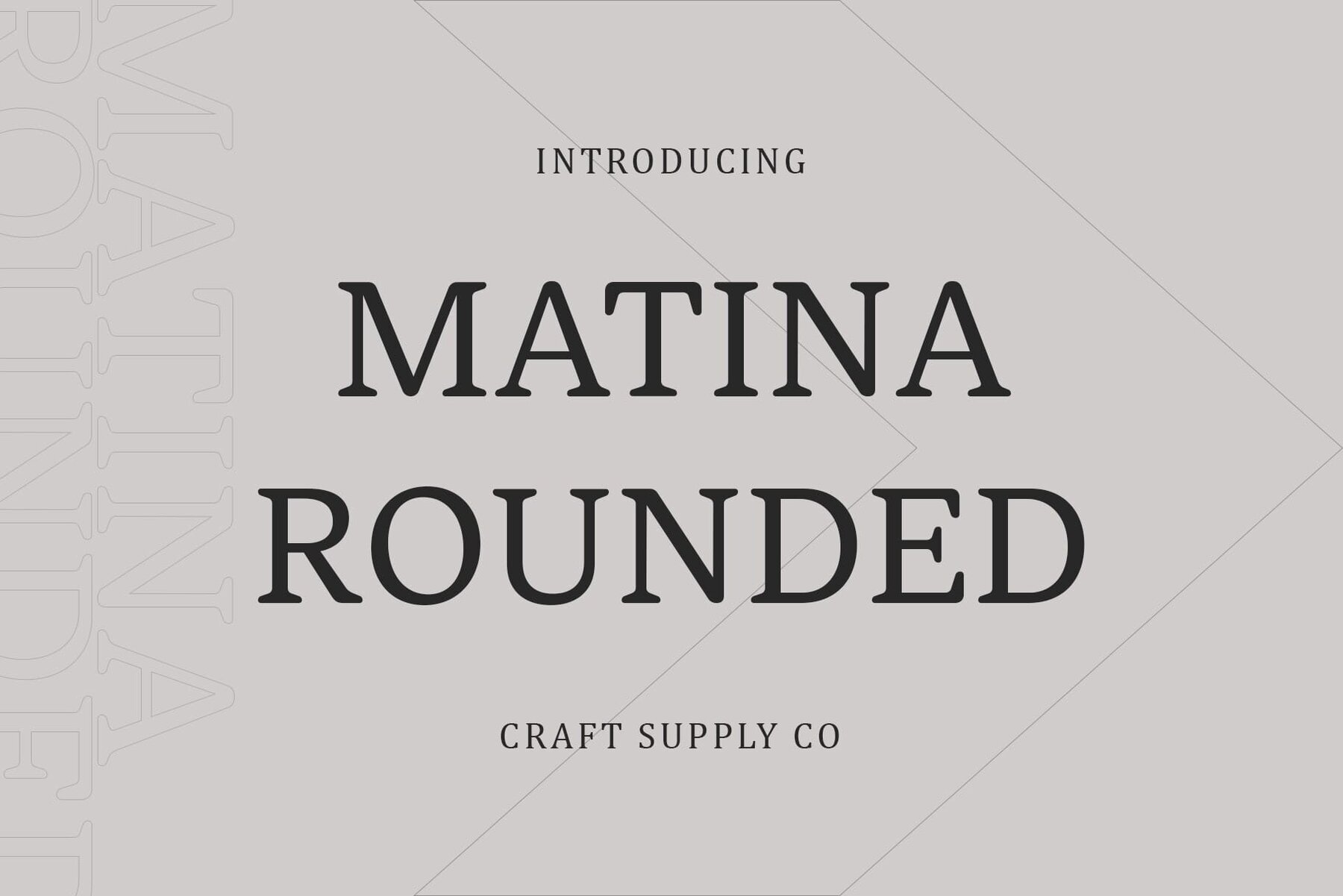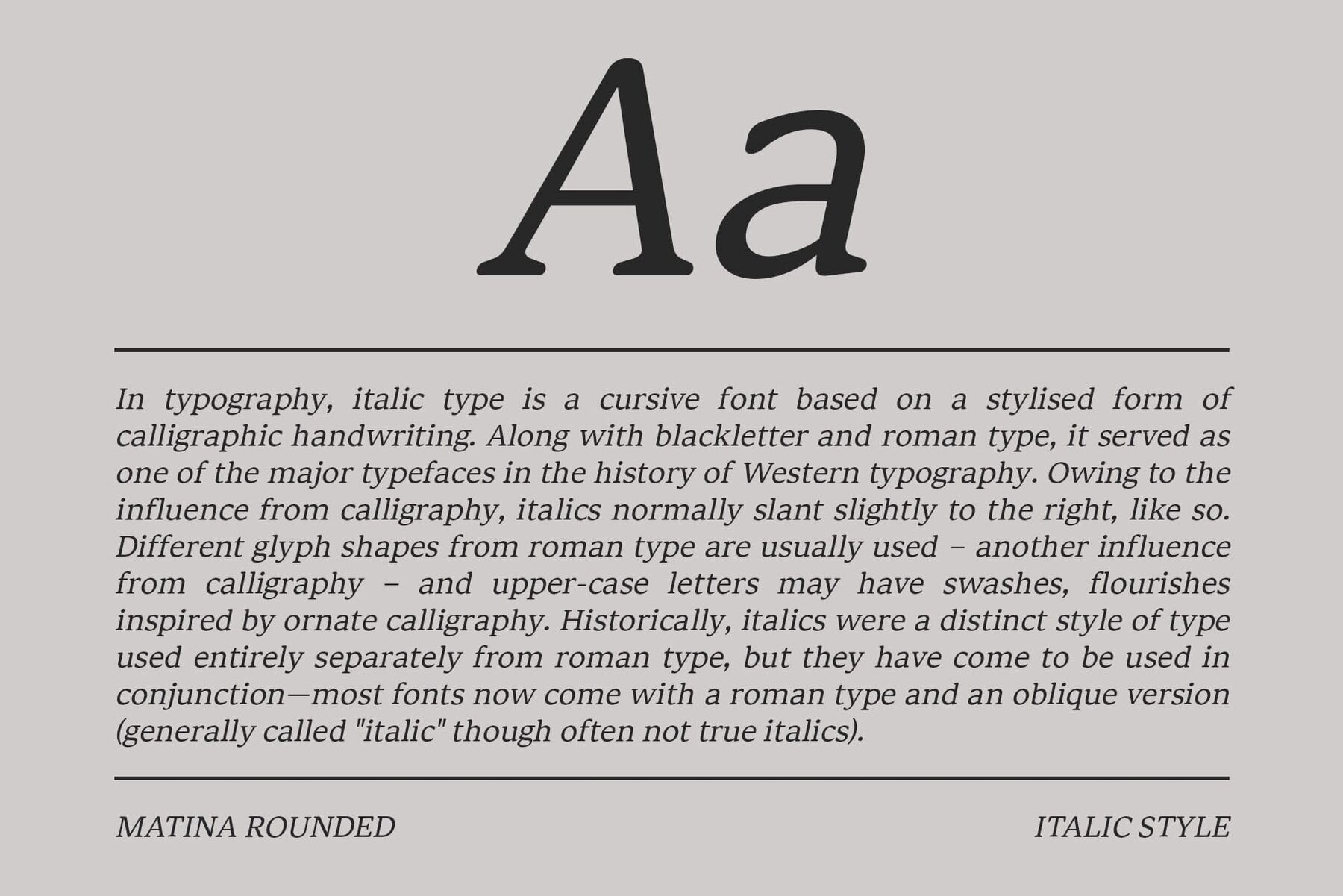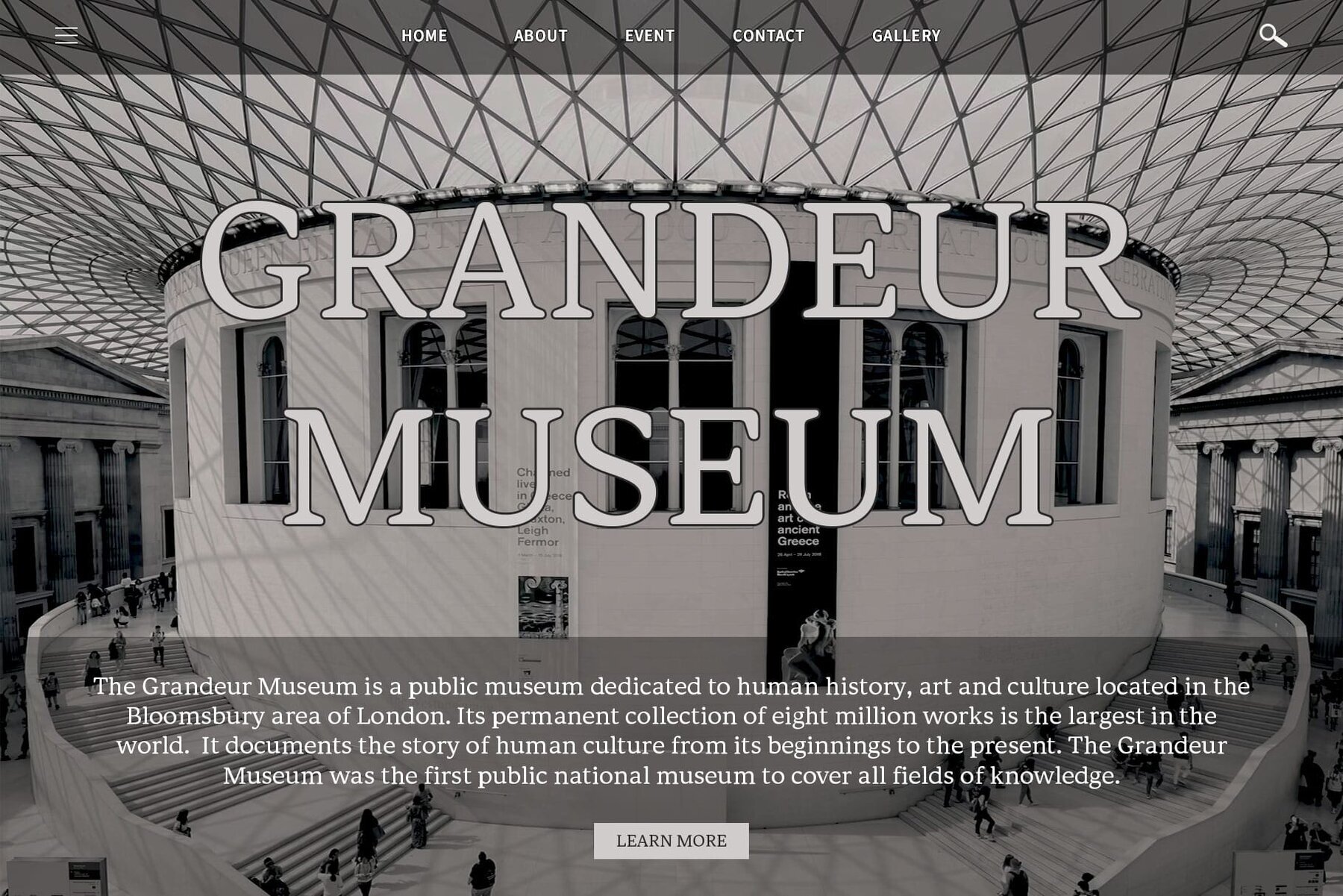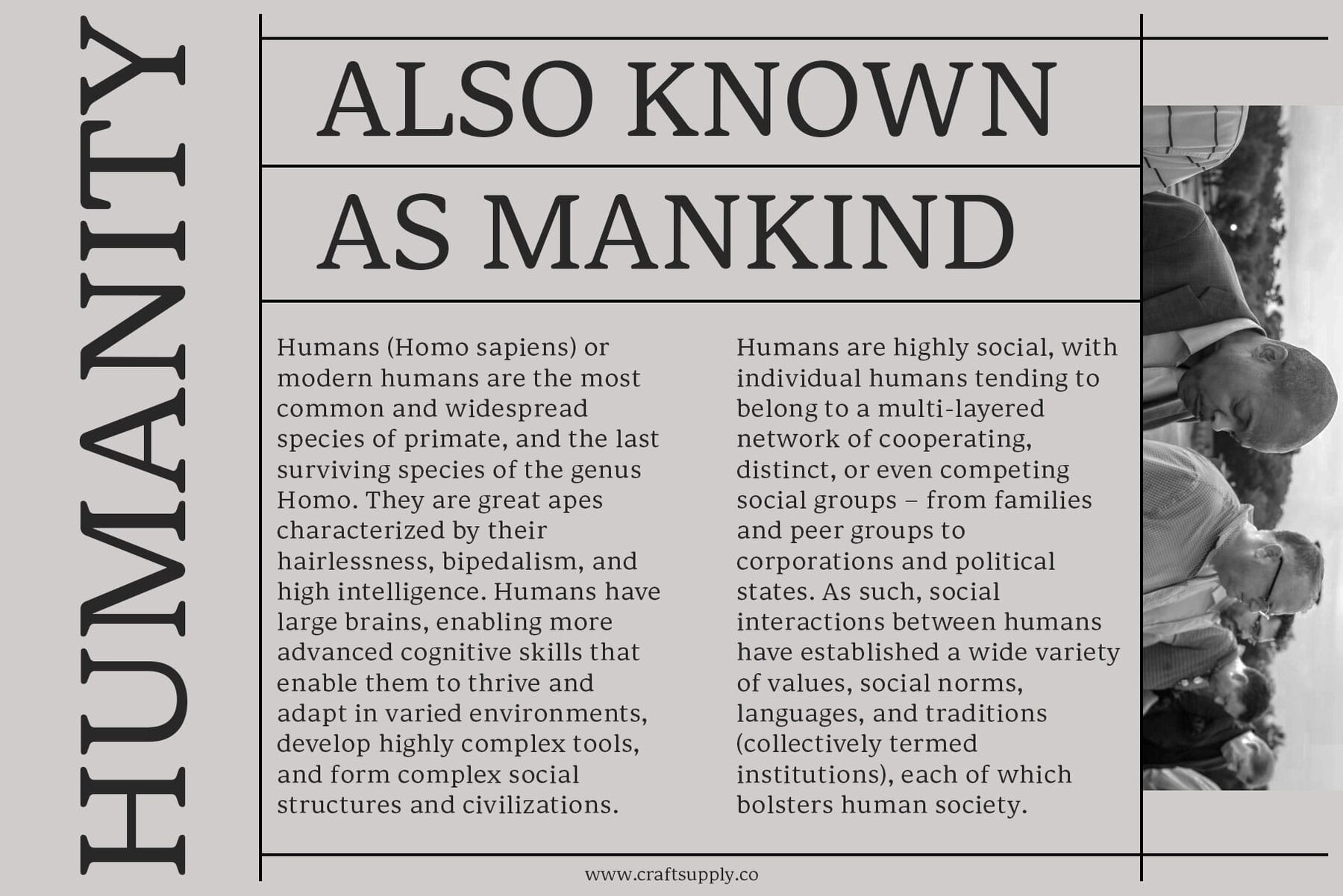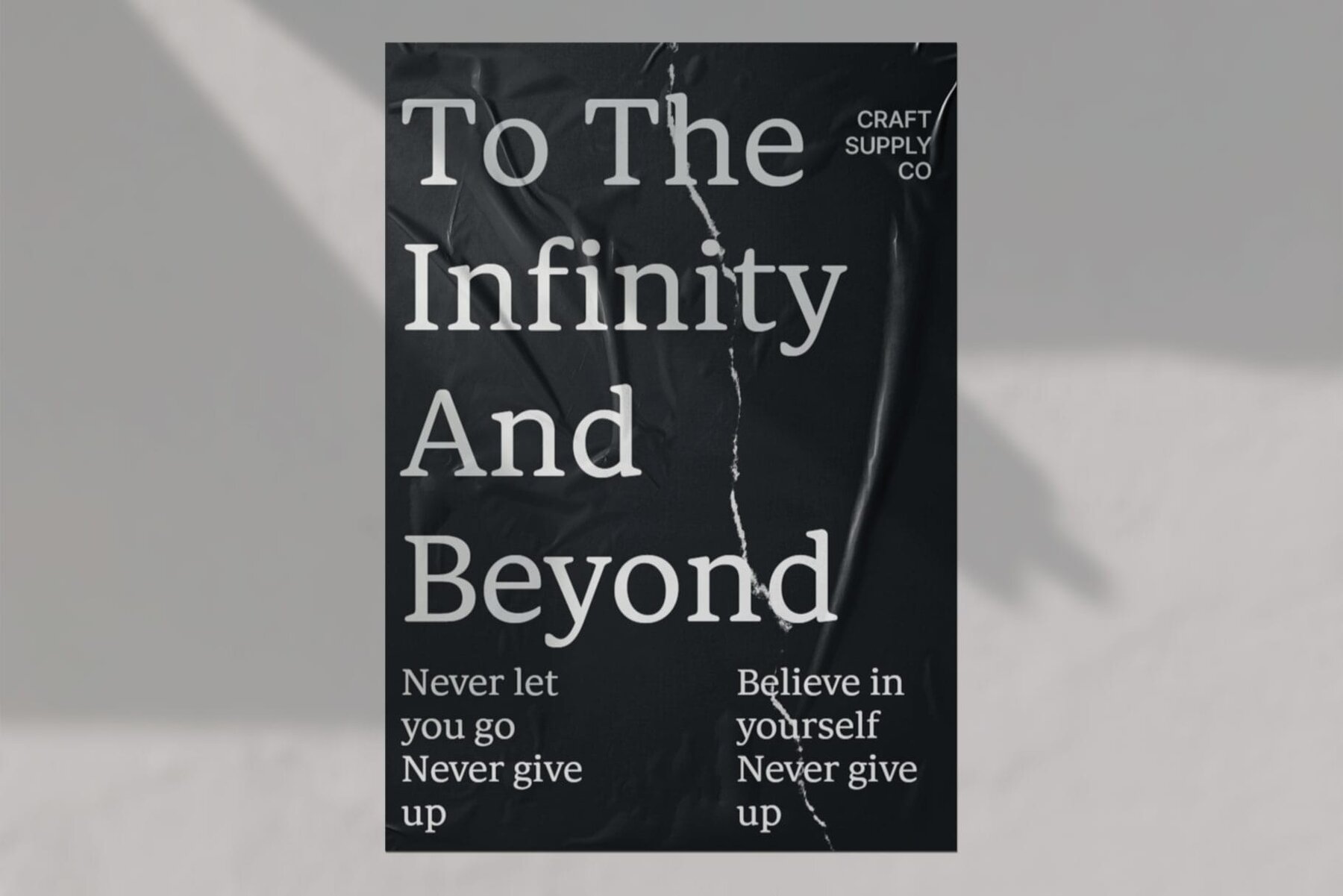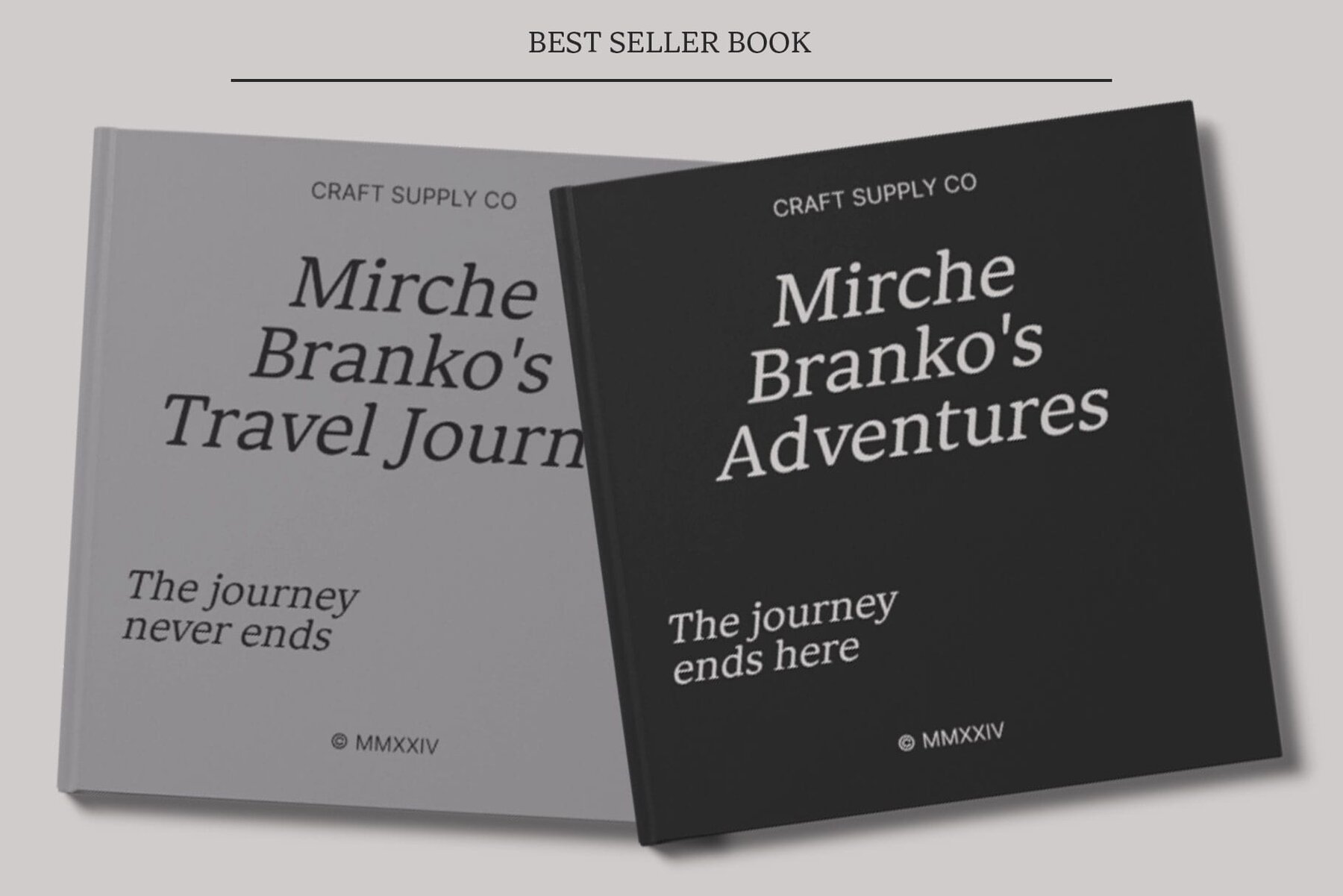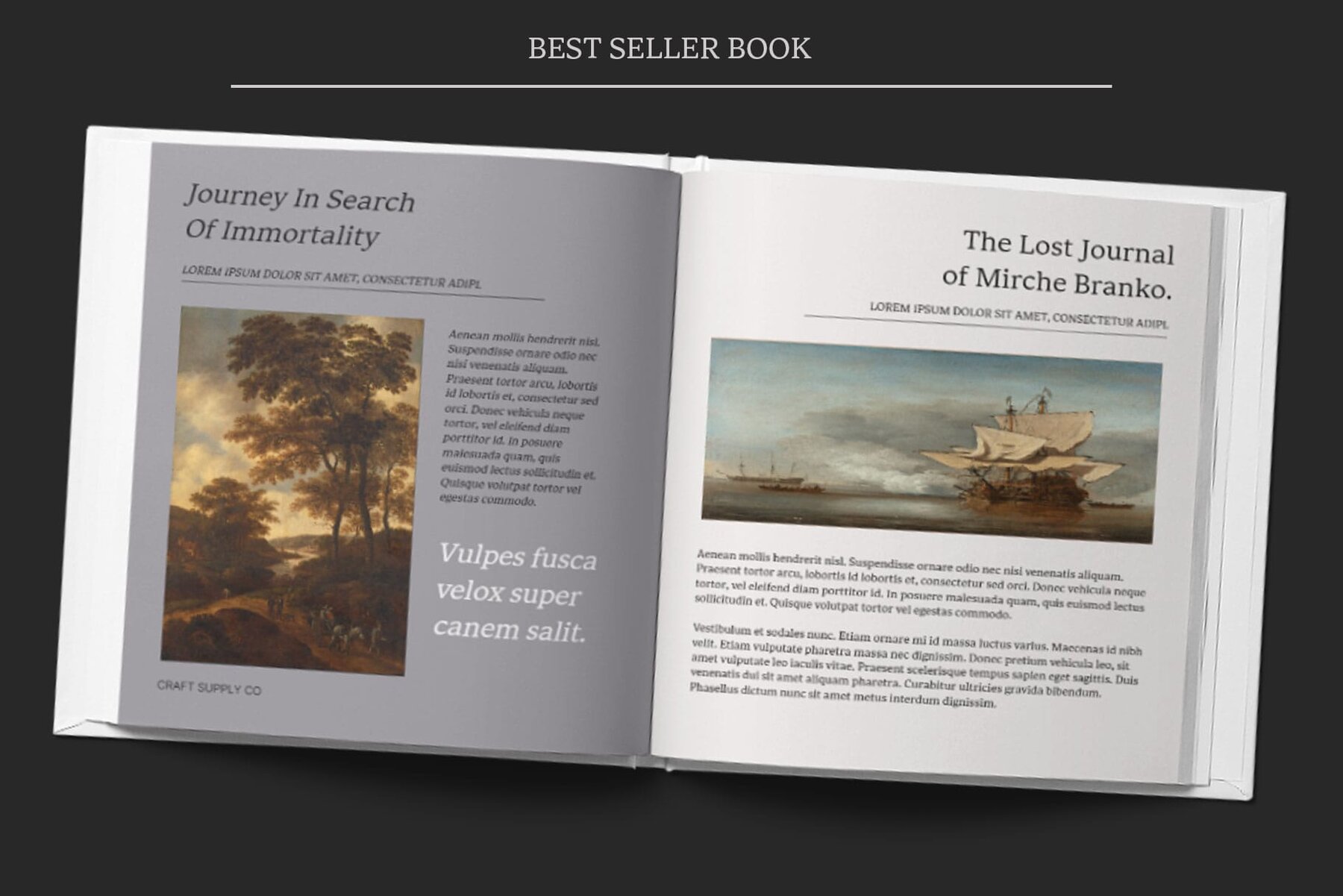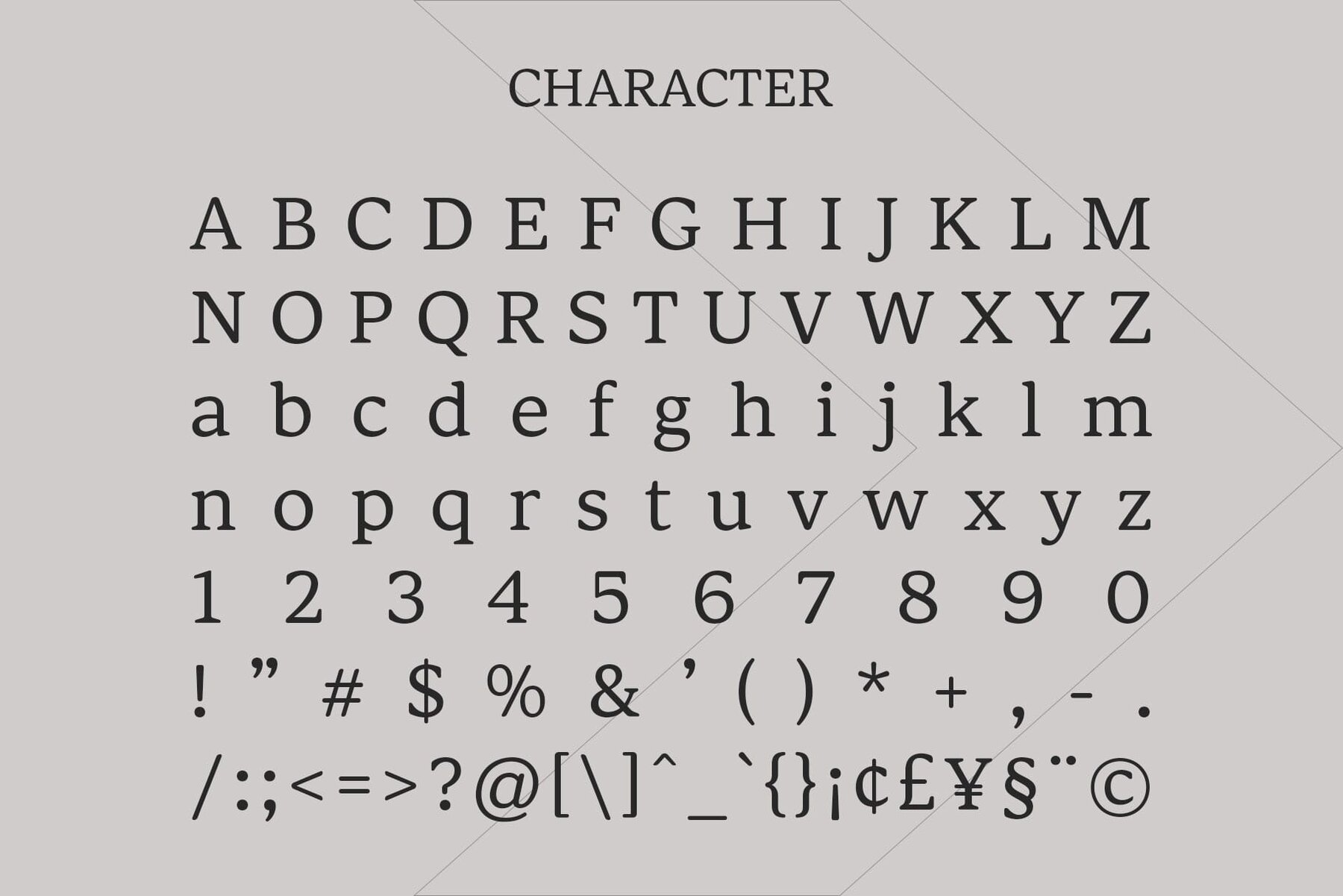
Matina Rounded Font
Gentle Contrast for Readability Featuring soft, rounded serifs, this font exudes warmth and approachability. The gentle curves of its letterforms create a friendly and inviting appearance, making it suitable for prolonged reading sessions. Crafted specifically for body text, Matina Rounded excels in conveying information effectively. Its low-contrast design reduces eye strain and fatigue, enhancing readability across various content formats. Beyond its primary use in body text, this font is versatile across a range of design applications. From digital interfaces to print publications, its understated elegance adds sophistication to any project. Matina Rounded emerges as the perfect choice for body text, thanks to its gentle contrast and soft serif aesthetics. Versatile and user-friendly, it ensures clear communication and comfortable reading experiences across diverse platforms and media. You can use this typeface without needing any specialized software. If you have any inquiries or need assistance, please feel free to contact us. We appreciate your support in enhancing your creative projects! Best regards, Craft Supply Co.Matina Rounded: Ideal for Body Text
Matina Rounded offers a serif font style with subtle contrast, ensuring a comfortable reading experience for body text. Its gentle contrast allows for smooth flow and enhanced legibility.
Soft Serif Aesthetics
Tailored for Body Text
Versatile Application
Body Text Font